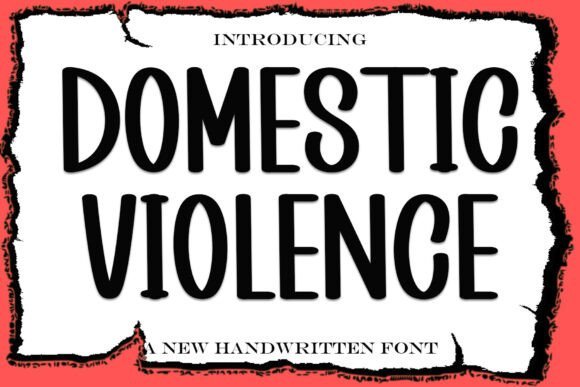
The Perfect Brushstroke: Unleashing the Power of Domestic Violence Font
There’s something magical about creating a design that truly speaks to your audience. You’re brainstorming ideas, sketching out rough drafts, and pouring your heart into every detail. And then, it happens – you find that one font that elevates your entire project to a new level. For many designers, that font is Domestic Violence Font, a trendy handwritten font that exudes a contemporary atmosphere and impeccable form.
Domestic Violence Font is more than just a stylish addition to your designs; it’s a way to convey elegance and class. Inspired by timeless classic calligraphy, this font is perfect for those looking to add a touch of sophistication to their projects. Whether you’re working on a branding campaign, a wedding invitation, or a social media graphic, Domestic Violence Font is sure to make a lasting impression.
Domestic Violence Font Key Features
- Unique Characteristic: Empathy and Sensitivity The font is designed to convey a sense of empathy and sensitivity, making it suitable for use in materials related to domestic violence support and awareness.
- Legibility: The font is designed to be highly legible, even at small sizes, to ensure that the message is conveyed clearly and effectively.
- Accessibility: The font is designed to be accessible to a wide range of users, including those with visual impairments, by providing a clear and consistent visual hierarchy.
Domestic Violence Font Review
As a designer, I was intrigued by the concept of the Domestic Violence Font, an open-source font created to raise awareness about domestic violence. At first glance, I appreciate the bold approach to tackling a sensitive topic.
- The font’s bold, striking design effectively grabs the viewer’s attention.
- The choice of color palette is somber and thought-provoking, adding to the overall impact.
- The font’s open-source nature allows for easy customization and distribution, making it accessible to a wide audience.
- The font’s design, while attention-grabbing, may come across as insensitive or triggering for some individuals who have experienced domestic violence.
- The font’s message may be lost on viewers who are not familiar with the issue or its context.
- The font’s usage may be limited to specific contexts or audiences, which could hinder its effectiveness as a tool for raising awareness.
Overall, the Domestic Violence Font is a thought-provoking and visually striking creation. While it has its limitations, it’s an important conversation starter that can help raise awareness about a critical issue. As a designer, I appreciate the bold approach and the potential for impact, even if it’s not without its challenges.
The Domestic Violence Font can be used in various contexts, including:
- Creating awareness campaigns about domestic violence.
- Designing posters, flyers, and brochures for support groups and organizations.
- Developing social media graphics and content.